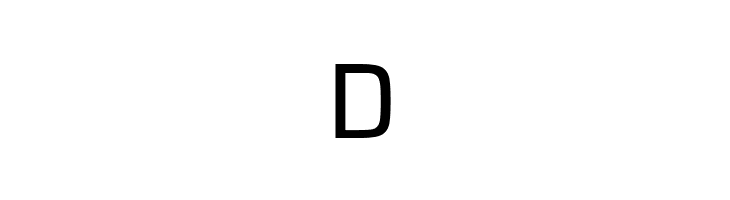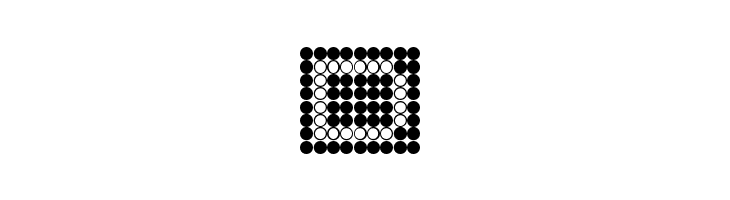
A pictogram dingbat set themed around Chinese culture.
A pixelated, retro-style font with a digital, tech-inspired design.
A bold and dynamic font with sharp angles and smooth curves.
A bold, hollow, geometric font with a futuristic and edgy design.
A modern, geometric font with clean lines and a sleek design.
A bold, modern font with a geometric and slightly condensed design.
A bold, italicized font with a modern and sleek appearance.
A sleek, modern italic font with a slightly condensed form and consistent stroke weight.
A bold, modern font with rounded edges and a strong presence.
A bold, italicized font with a modern, dynamic style and strong visual impact.
A bold, modern font with clean, geometric lines and medium contrast.
A bold, italicized font with a modern, sleek, and slightly condensed style.
A sleek, modern italic font with a dynamic and streamlined appearance.
A modern, geometric sans-serif font with uniform stroke widths and a minimalist design.
A sleek, modern, light italic font with a streamlined and elegant appearance.
A modern, rounded font with uniform stroke width and excellent readability.
A modern sans-serif font with a clean, professional look and uniform stroke widths.
A bold, modern sans-serif font with a strong and clean appearance.
A bold, modern font ideal for impactful headlines and branding.
A bold, italic font with a modern and dynamic style.
Bold and italicized font with a modern, dynamic style.
A modern, italic sans-serif font with clean lines and a dynamic style.
A sleek, modern, and elegant light italic font with clean lines.
An elegant script font with ornate, flowing letterforms and decorative flourishes.
A bold, cursive font with dynamic curves and a shadow effect for added depth.
A decorative script font with elegant swirls and modern flair.
A bold, hand-painted style font with expressive, uneven edges.
A bold, hand-painted style font with dynamic, brush-like strokes.
A bold, high-contrast serif font with a modern yet classic style.
A bold, angular font with sharp edges and a dramatic, condensed style.